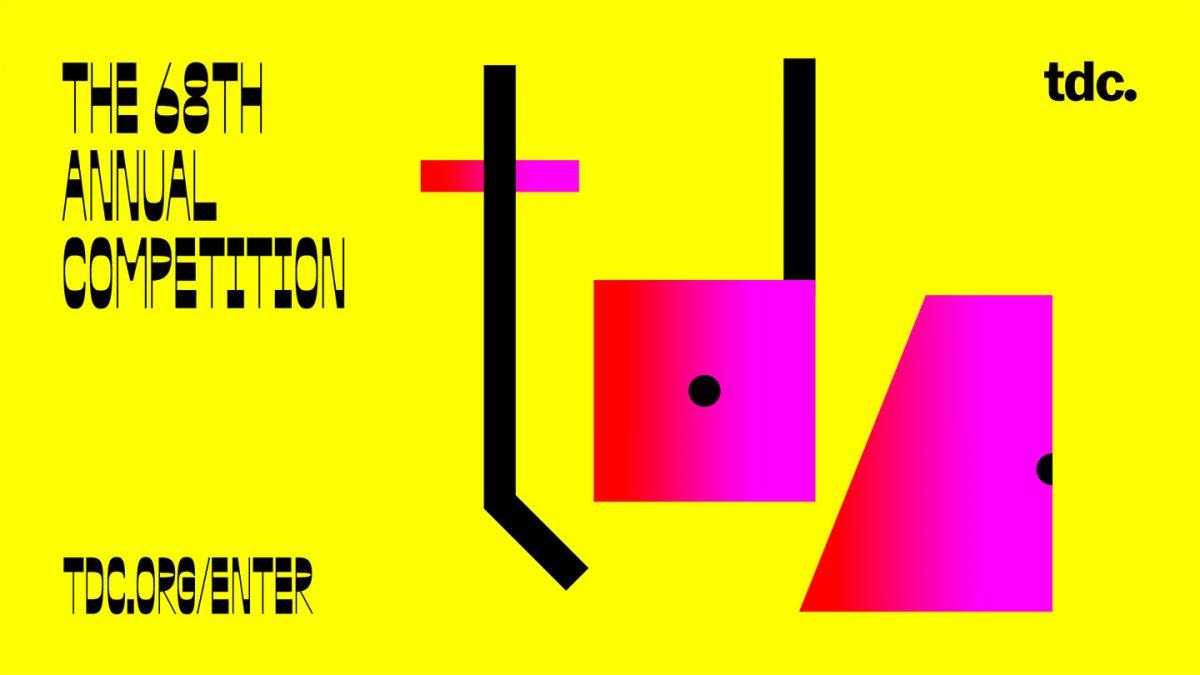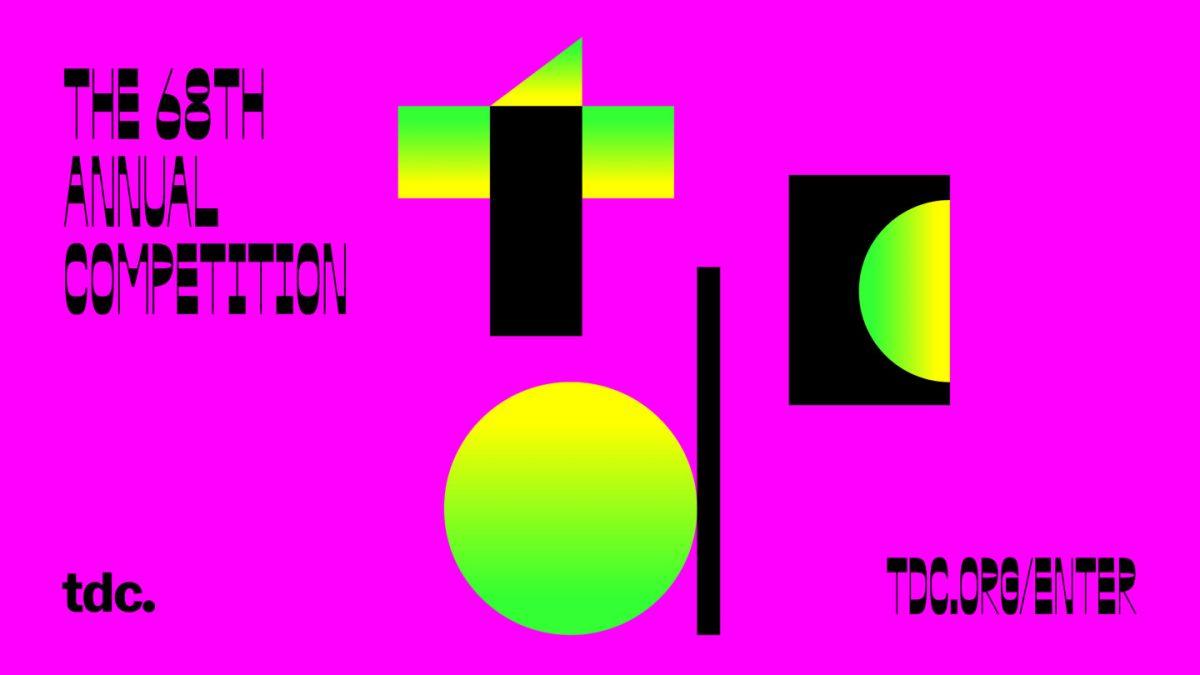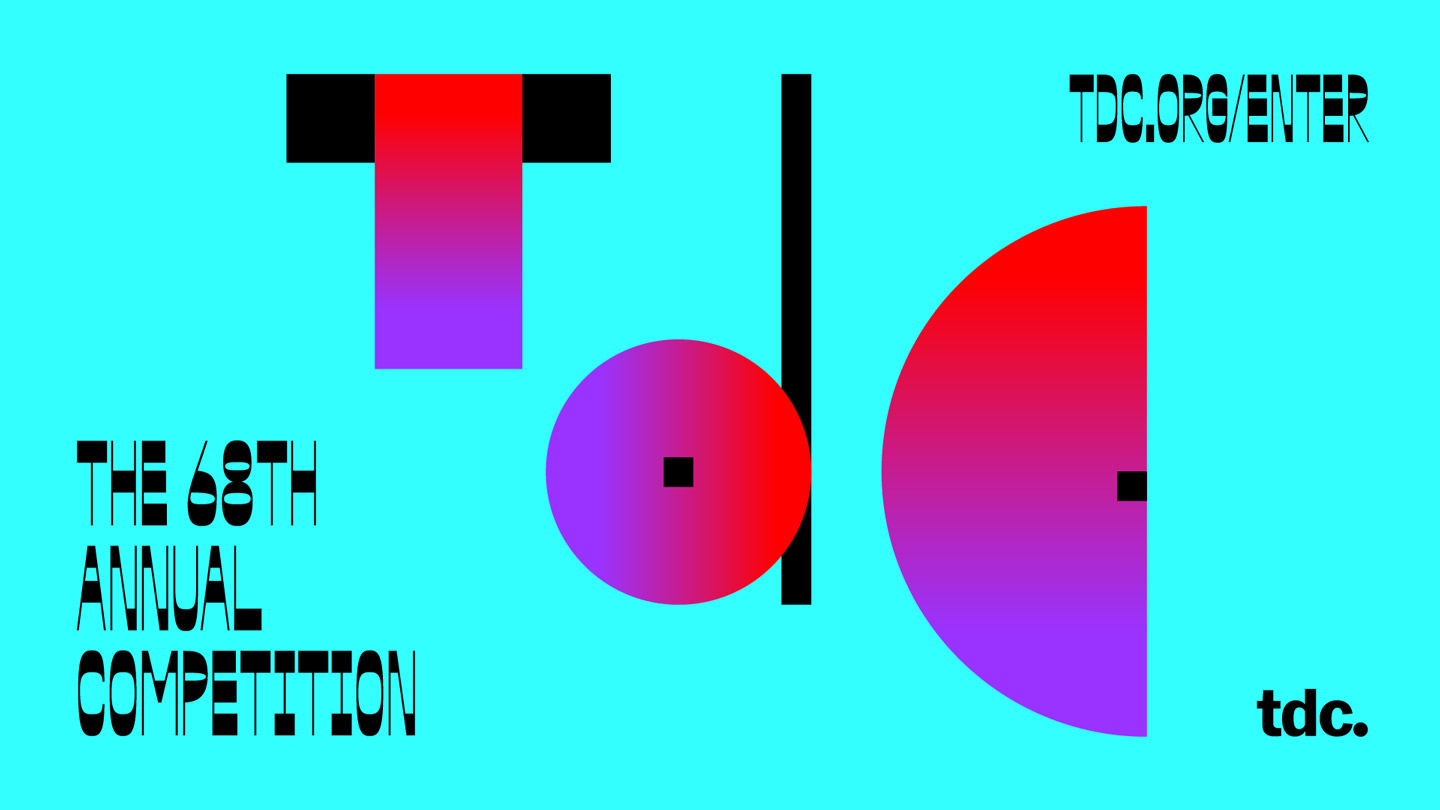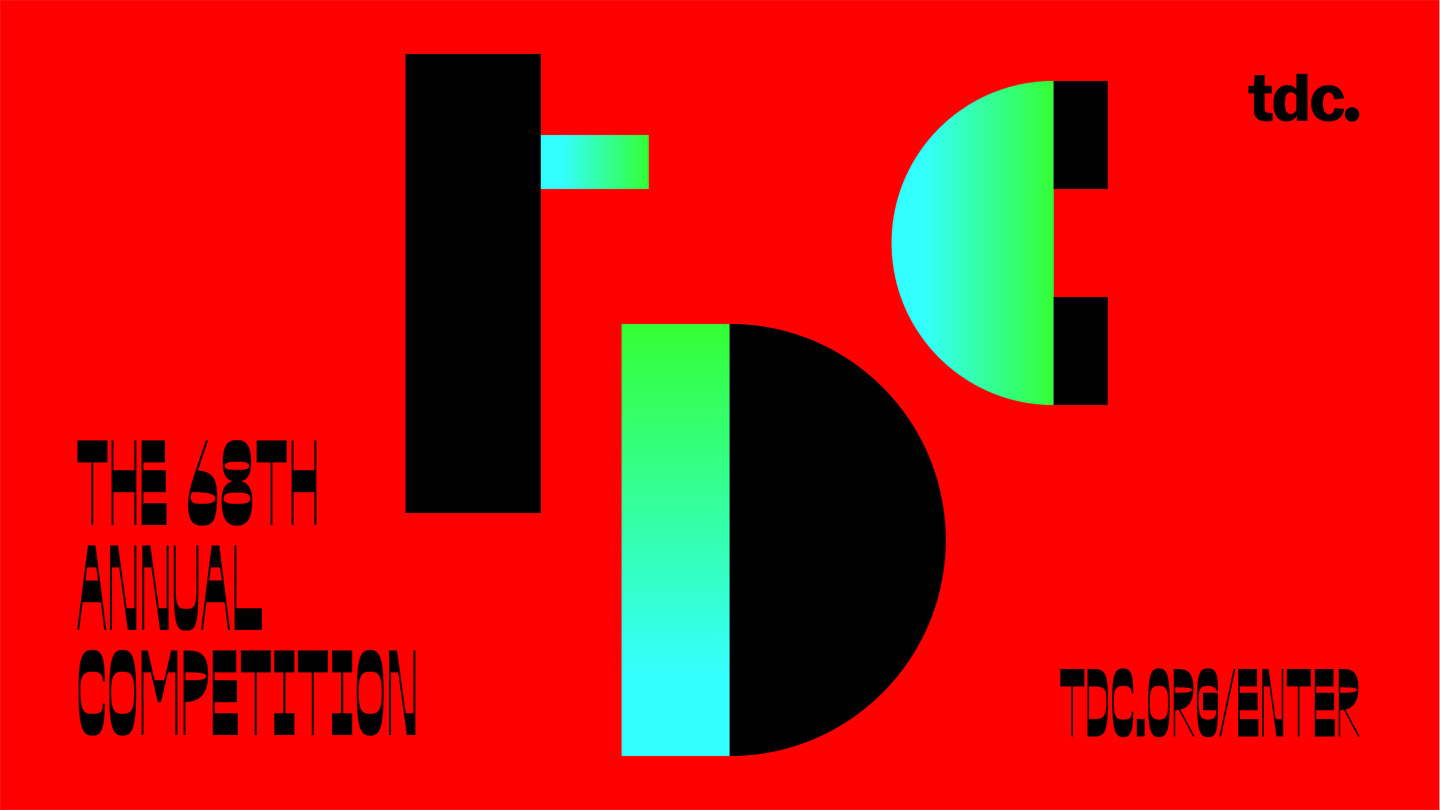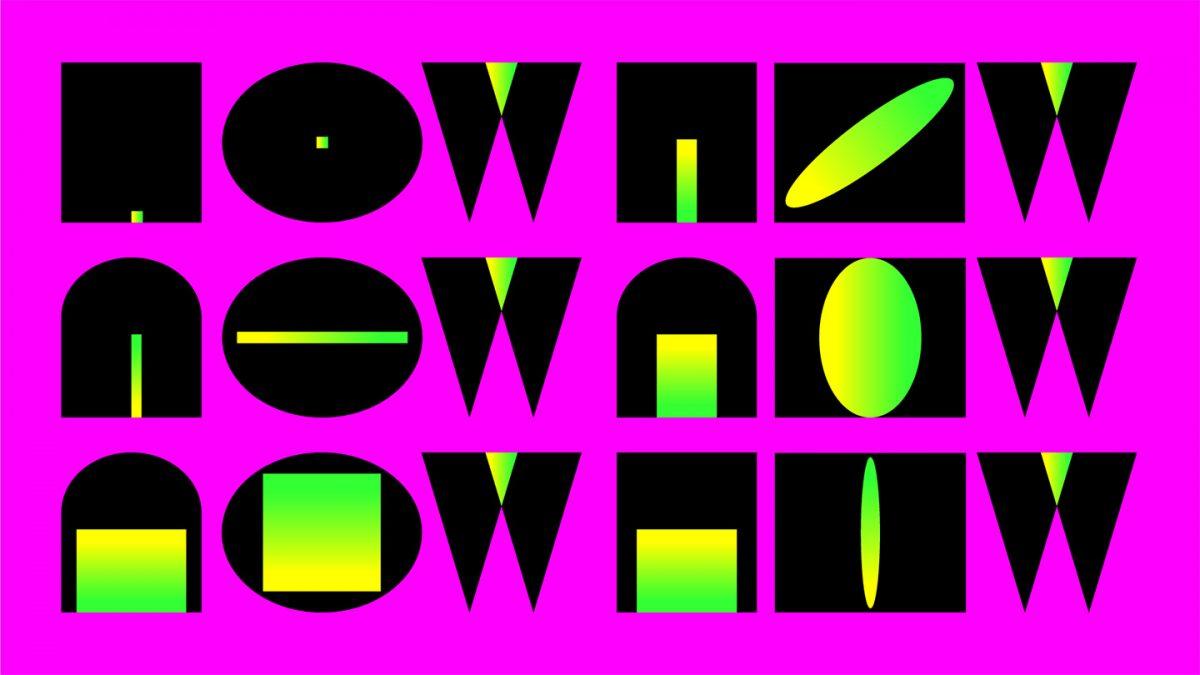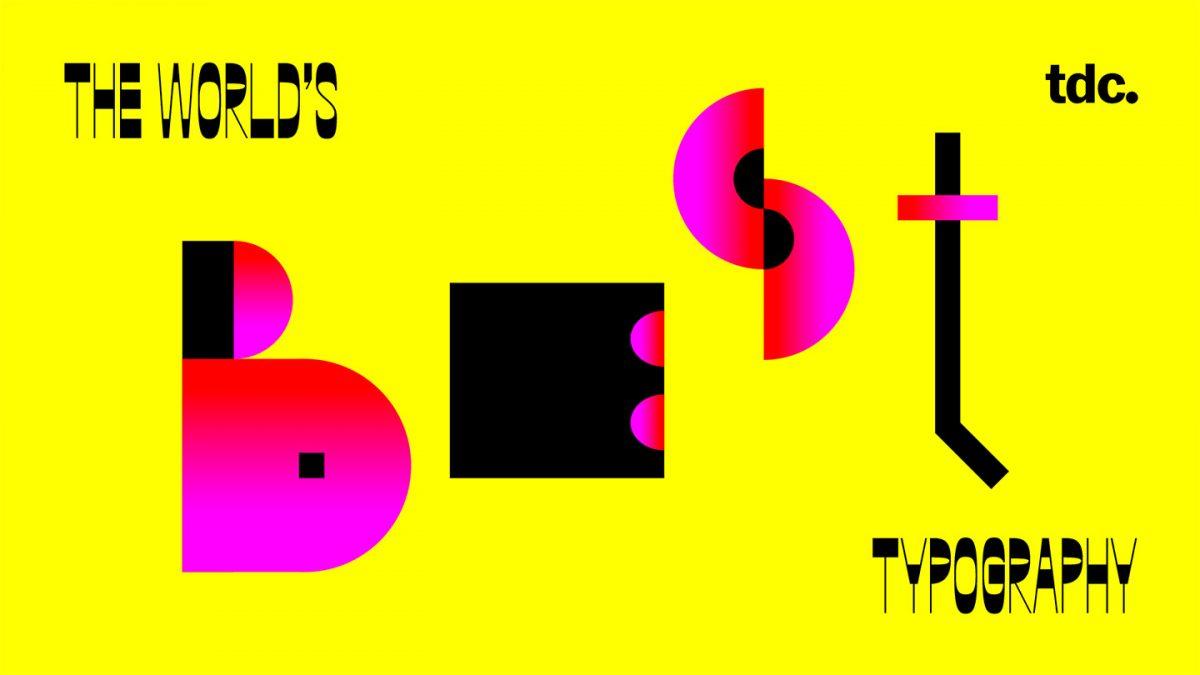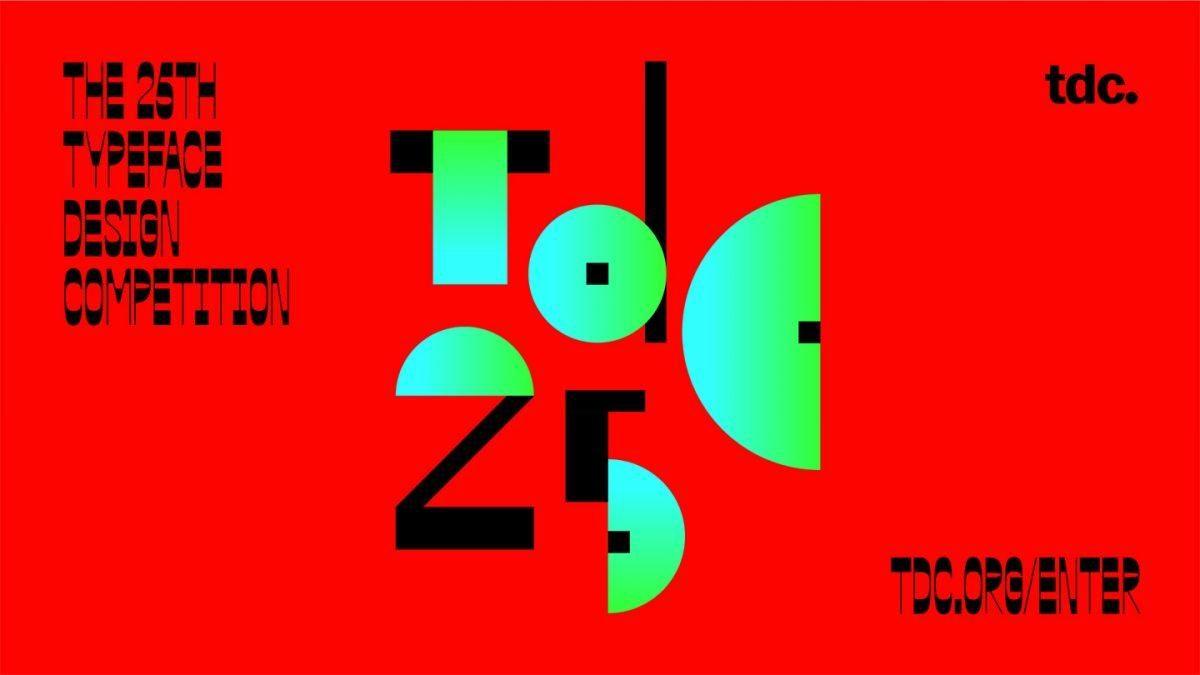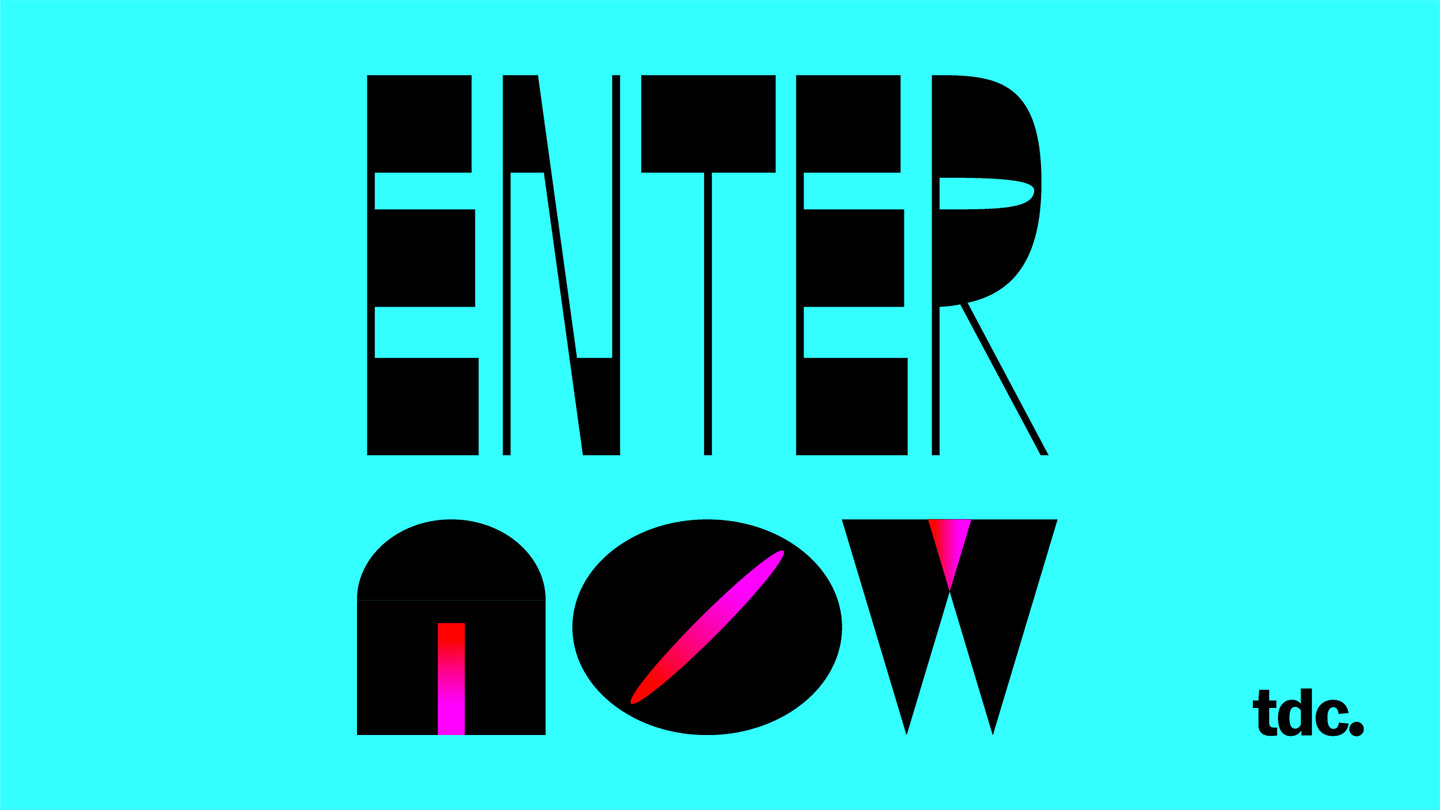
NEW YORK, USA — The Type Directors Club, the world’s leading typography organization and part of The One Club for Creativity, has opened the call for entries and announced juries for its two premiere global awards programs: TDC68 Communication Design and expanded 25TDC Typeface Design competitions.
TDC68 recognizes how letterforms are used, honoring typographic excellence and innovation along with the art and craft of typography and design. 25TDC focuses on how letterforms are drawn, and celebrates new typeface designs in non-Latin letterforms. The competitions regularly receive entries from more than 60 countries.
This year’s awards competitions reflect TDC’s ongoing commitment to increase the level of diversity and representation in its juries, awards entries and general programming, as well as among TDC membership and on its Advisory Board.
A highlight for this year is the expanded 25TDC Typeface Design competition, which for the first time includes dedicated categories and expert judges for Arabic, Indic, and Chinese/Japanese/Korean. The competition has always accepted entries for those scripts; this expansion of dedicated categories and additional judges was prompted by the increased number of entries for these scripts in recent years.
Each of the script categories has three dedicated expert jury members, increasing the total number of 25TDC jurors from six to 14. This represents the typeface design competition’s largest awards jury expansion in its 25-year history, a reflection of TDC’s mission to recognize and support the diverse global type design community.
Indic
- Kimya Gandhi, typeface designer, partner, Mota Italic, Berlin/Mumbai
- Neelakash Kshetrimayum, creative director, Brandnewtype, Goa
- Anagha Narayanan, independent type designer, Hyderabad (India)
Chinese/Japanese/Korean
- Minjoo Ham, type designer, typographer, graphic designer, Berlin
- Lisa Huang, independent type designer, Paris
- Kazuhiro Yamada, senior type designer, Monotype, Tokyo
Also new this year, TDC68 Communications Design includes a new Design for Social Good category, in recognition of the important role that design plays in furthering social causes.
In addition, an exciting change to TDC student entries will be announced shortly.
TDC68 and 25TDC winners receive a Certificate of Typographic Excellence and digital tag certifying their work is among the world’s best of the year. Winning work will be featured in the highly respected TDC Annual, The World’s Best Typography®, and showcased in eight exhibitions that travels to museums, schools and design organizations around the world. In the student categories, three students for TDC68 and one for 25TDC will win monetary awards.
TDC68/25TDC branding by Tereza Bettinard
This year’s call for entries is supported by a striking branding campaign designed by TDC member Tereza Bettinardi, based in São Paulo, which creatively explores the “counterspaces” or inner parts of letters.
“The design process started with one question: what if we expand the inner shapes of the letters to create new forms?.” she said. “As these small shapes expand and are used to create entirely new forms, at some point we end up also setting new rules to this infinite game.”